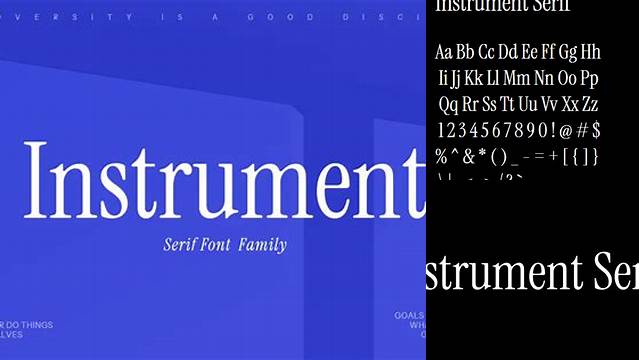
Serif Fonts: A Musician's Guide To Elegant Typography
Hey music lovers and design aficionados! Ever wondered about the secret sauce behind those sophisticated concert posters or the elegant sheet music you see? A big part of it lies in the fonts used, and when it comes to conveying a sense of tradition, class, and musicality, serif fonts are often the go-to choice. We're diving deep into the world of instrument serif fonts and exploring how they're used to create visual harmony in the music industry. So, grab your headphones, tune in, and let's get started!
1. The Timeless Appeal of Serif Fonts in Music
Serif fonts have a long and rich history, dating back to ancient Roman inscriptions. Their distinctive strokes, or βserifs,β at the ends of the letterforms, give them a classic and formal appearance. This timeless quality makes them perfect for representing the enduring nature of music, particularly classical and traditional genres. Think about the programs for a symphony orchestra β you'll often see a beautiful serif font lending an air of sophistication and prestige. But it's not just for classical music, guys! Serif fonts can also add a touch of elegance to jazz, blues, and even some contemporary genres. The key is to choose the right serif font that complements the specific musical style and overall aesthetic.
2. Understanding Different Serif Font Styles
Not all serif fonts are created equal! There's a whole spectrum of styles, each with its own personality and nuances. Old-style serifs, like Garamond and Caslon, have a classic, humanist feel, making them ideal for conveying a sense of tradition and history. Transitional serifs, such as Times New Roman and Baskerville, offer a more refined and balanced look, suitable for a wide range of applications. Modern serifs, like Didot and Bodoni, are characterized by their high contrast between thick and thin strokes, giving them a sleek and sophisticated appearance. Slab serifs, with their bold, blocky serifs, have a more contemporary and assertive feel. Understanding these different styles is crucial for choosing the instrument serif font that best represents the music and the message you want to convey. It's like choosing the right instrument for a particular piece β you wouldn't use a tuba in a delicate piano sonata, would you?
3. Garamond: A Classic Choice for Musical Settings
Garamond, oh Garamond, where do we even begin? This serif font is a true classic, renowned for its elegance, readability, and timeless appeal. Its graceful letterforms and subtle variations in stroke weight make it a pleasure to read, whether in print or on screen. In musical settings, Garamond is often used for programs, liner notes, and even sheet music, particularly for classical and early music. Its refined appearance perfectly complements the sophistication and historical depth of these genres. Imagine seeing the program for a Bach concert set in Garamond β it just feels right, doesn't it? The subtle curves and delicate serifs of Garamond evoke a sense of artistry and craftsmanship, mirroring the precision and beauty of the music itself. It's a serif font that whispers elegance, making it a top choice for conveying a sense of timeless musical excellence.
4. Baskerville: Balancing Tradition and Modernity
Baskerville is like the cool, sophisticated cousin of Garamond. It's a transitional serif font that strikes a perfect balance between tradition and modernity. Its crisp, clean lines and balanced proportions give it a more refined and contemporary feel than some of the older serif styles. This makes it a versatile choice for a wide range of musical applications, from classical concert posters to jazz album covers. Baskerville's legibility is also a major plus, making it ideal for body text in programs and liner notes. Think of it as the serif font that can rock a tuxedo and still feel comfortable jamming in a jazz club. Its understated elegance and modern sensibilities make it a fantastic option for conveying a sense of sophistication without feeling stuffy. If you're looking for a serif font that's both timeless and contemporary, Baskerville is definitely worth considering.
5. Times New Roman: The Ubiquitous Serif in Music Publishing
Okay, okay, we know what you're thinking: Times New Roman? Really? It's the default serif font of everything! But hear us out. There's a reason Times New Roman is so ubiquitous, especially in the world of music publishing. Its incredible legibility and space-saving design make it a practical choice for dense texts, like sheet music and academic papers on music theory. While it might not be the most exciting or visually striking serif font, its reliability and clarity are undeniable. Think of it as the dependable workhorse of the serif font world β it gets the job done, efficiently and effectively. You might not choose Times New Roman for a flashy album cover, but for clear, readable sheet music, it's a solid option. It's the unsung hero of serif fonts in the musical realm.
6. Didot and Bodoni: High-Contrast Serifs for Dramatic Effect
If you're looking to make a statement, Didot and Bodoni are your go-to serif fonts. These modern serifs are characterized by their extreme contrast between thick and thin strokes, giving them a dramatic and elegant appearance. They're often used in high-fashion magazines and luxury branding, and they can bring that same level of sophistication to musical applications. Imagine a jazz album cover with the artist's name in a bold Didot β it instantly conveys a sense of style and glamour. However, these serif fonts can be tricky to use in large blocks of text, as their high contrast can strain the eyes. They're best used sparingly, for headlines, titles, and logos, where their dramatic flair can really shine. Think of them as the divas of the serif font world β they demand attention and deliver it in spades.
7. Slab Serifs: A Bold Choice for Contemporary Music
Slab serif fonts, with their thick, blocky serifs, have a more contemporary and assertive feel than their traditional counterparts. They're often associated with industrial design and vintage posters, and they can bring a touch of retro cool to musical projects. Slab serifs are a great choice for album covers, posters, and other promotional materials, particularly for genres like rock, blues, and indie music. Think of a band logo in a bold slab serif font β it instantly conveys a sense of strength and individuality. However, like Didot and Bodoni, slab serifs can be a bit overwhelming in large blocks of text. They're best used for headlines and titles, where their bold presence can make a real impact. They're the rebels of the serif font family, breaking the mold and adding a touch of grit to the musical landscape.
8. Using Serifs for Band Logos
Your band's logo is its visual identity, the first thing people see and associate with your music. Choosing the right font for your logo is crucial, and a well-chosen serif font can convey a sense of professionalism, history, and musicality. A classic serif font like Garamond or Baskerville can be perfect for bands aiming for a timeless and sophisticated image, while a bolder slab serif can add a touch of edge and modernity. The key is to choose a serif font that reflects your band's style and personality. Consider the genre of music you play, your target audience, and the overall message you want to send. A serif font can be a powerful tool for branding your band and creating a lasting impression.
30. Where to Find Inspiration for Serif Font Use in Music
Feeling inspired to explore the world of serif fonts in music but not sure where to start? Don't worry, guys, there's inspiration everywhere! One of the best places to look is at the printed materials of established musical institutions β think symphony orchestra programs, opera house posters, and the liner notes of classical albums. These often showcase elegant and sophisticated serif font choices. Online, you can browse design blogs and typography showcases, paying attention to how serif fonts are used in music-related branding and artwork. Don't forget to explore vintage posters and sheet music, which can offer a treasure trove of classic serif font examples. Even simply paying attention to the fonts used in your favorite musical publications can spark new ideas. The key is to keep your eyes open and constantly seek out examples of effective serif font use in the musical realm. So, go out there and get inspired!